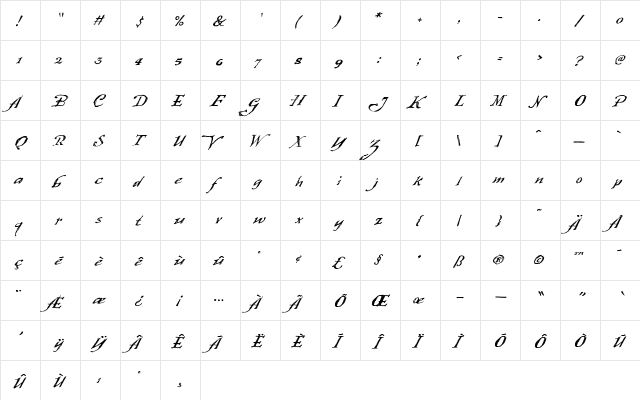
FourScore Regular
Design Context for FourScore Typeface
FourScore is a composed and adaptable typeface that performs quietly and consistently across a wide range of design contexts.
Pro Tip: Pair FourScore with a font of contrasting weight or personality to build a more expressive typographic hierarchy.